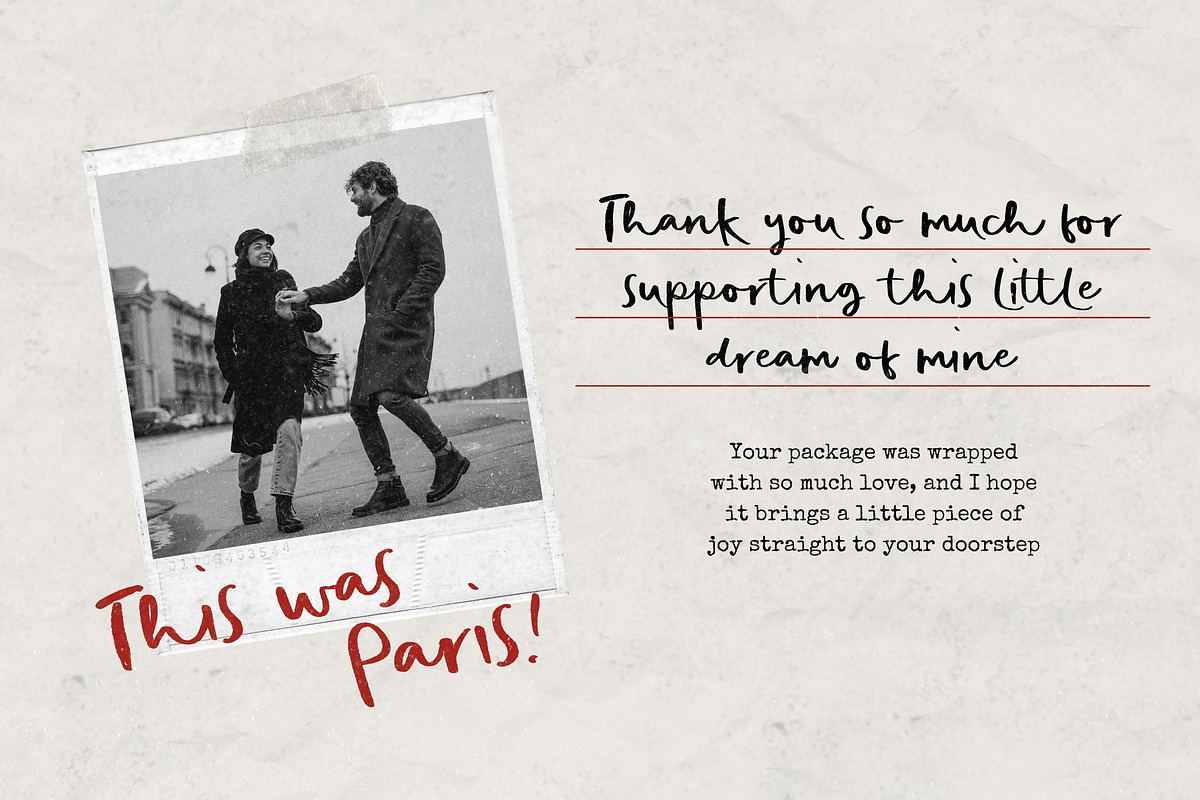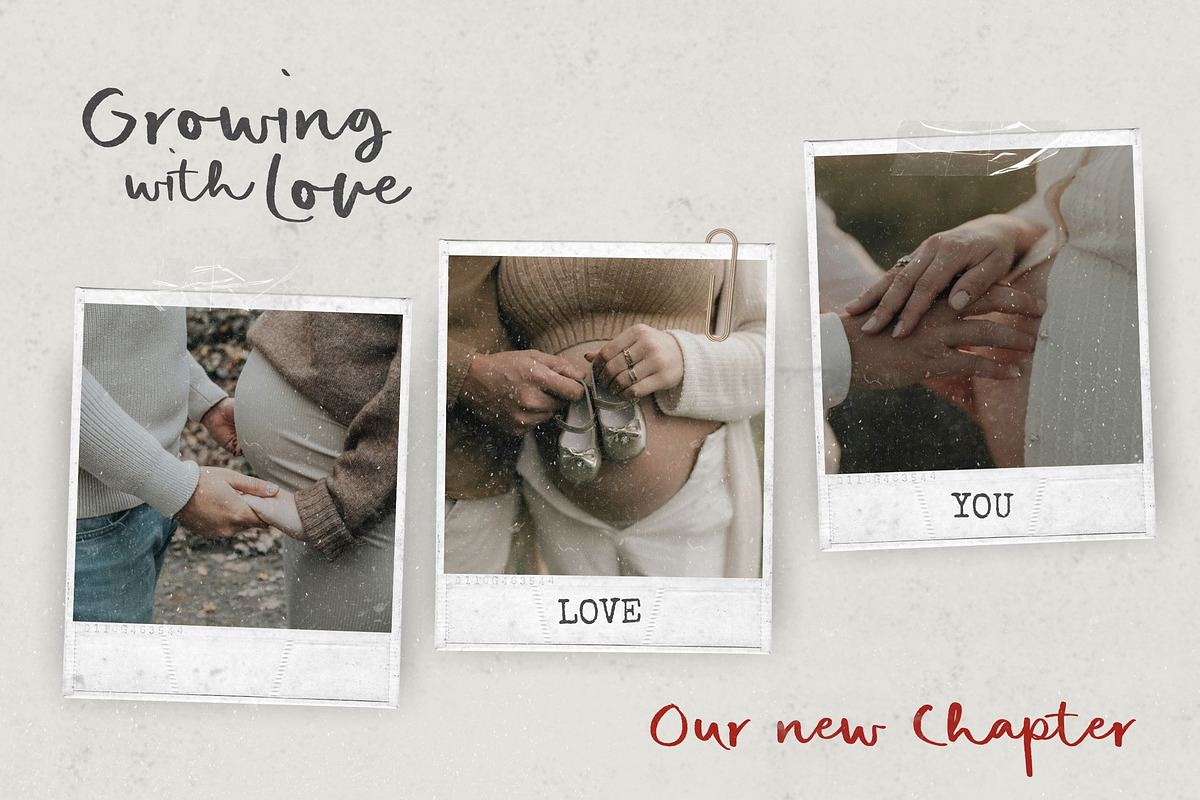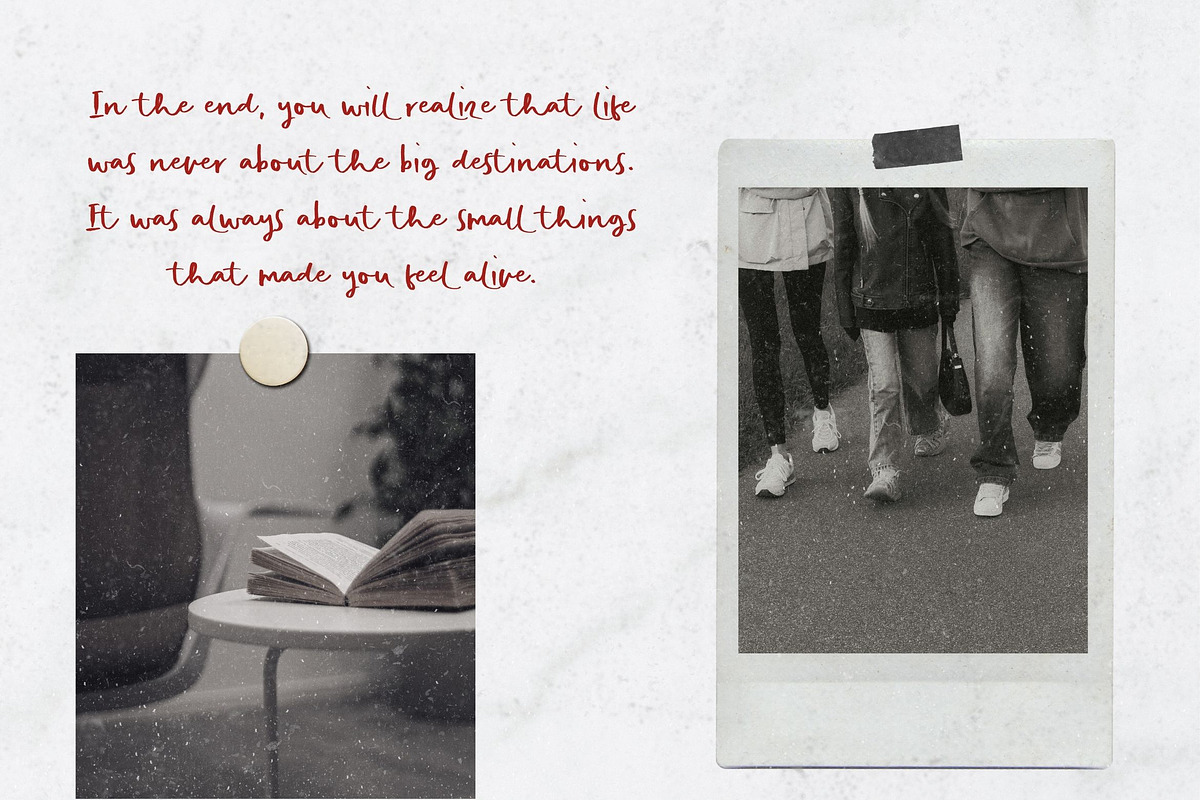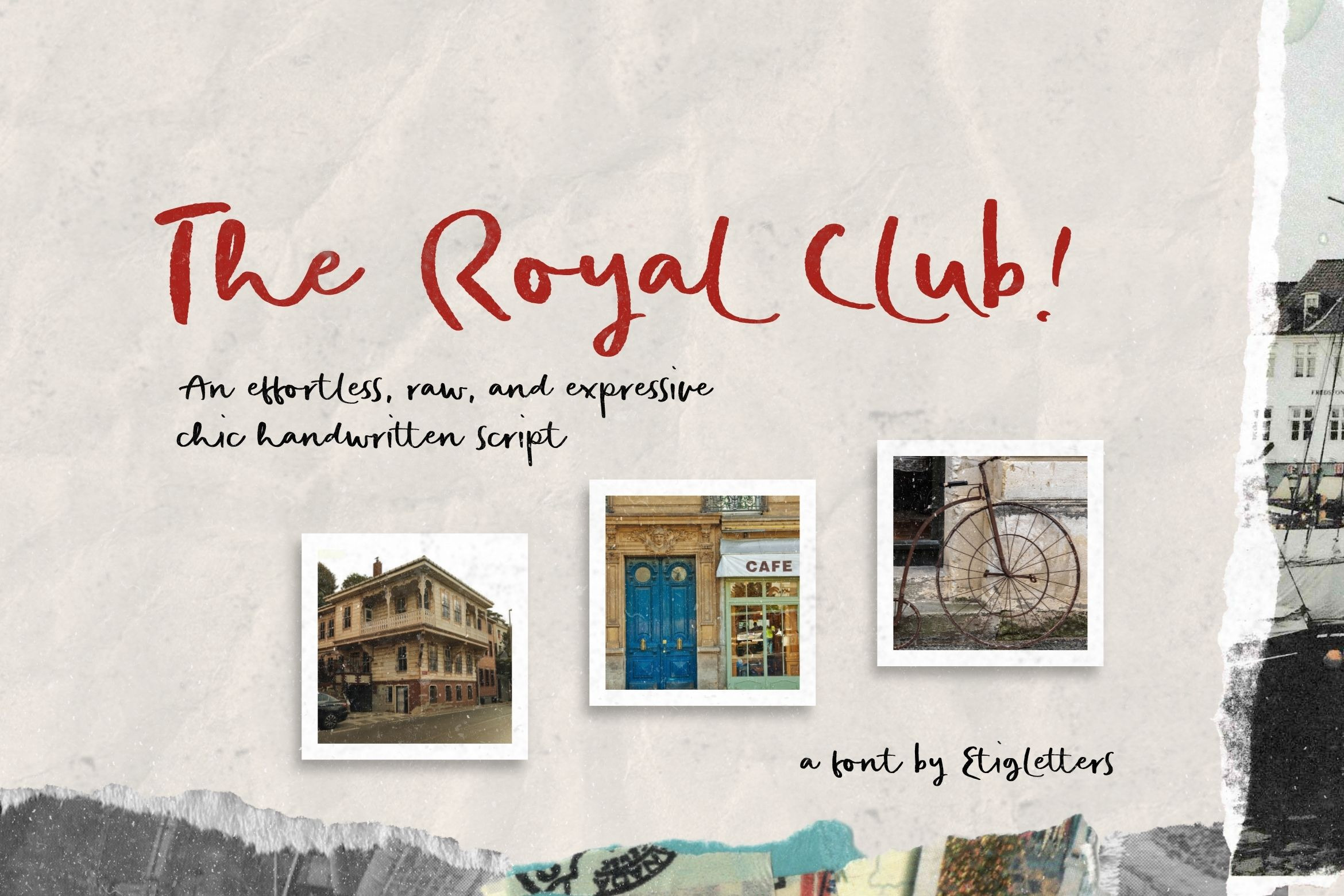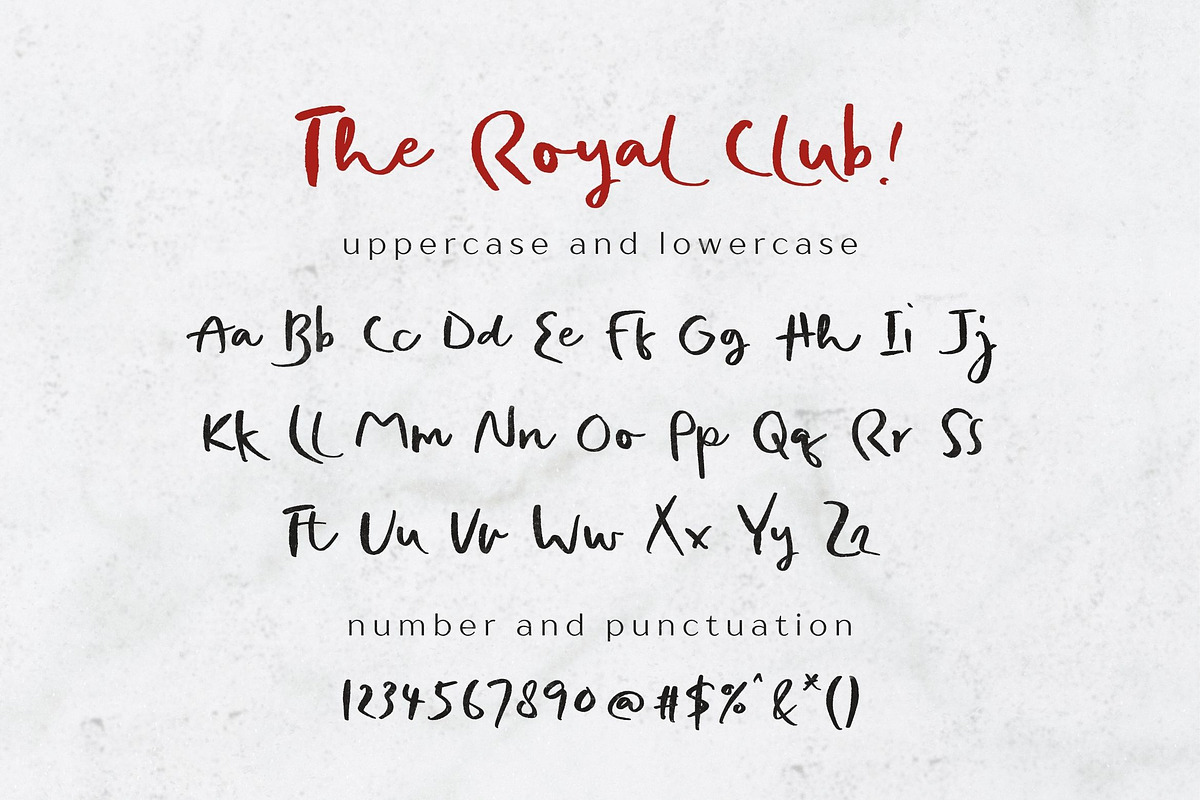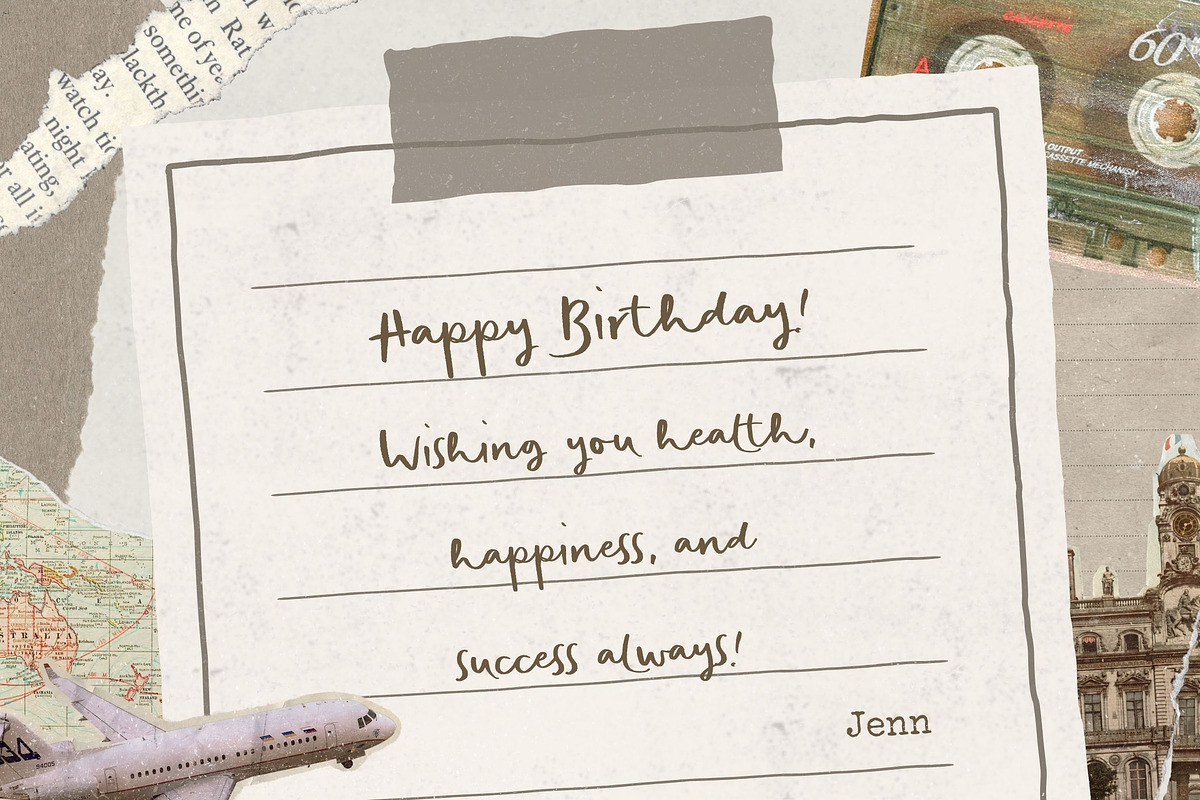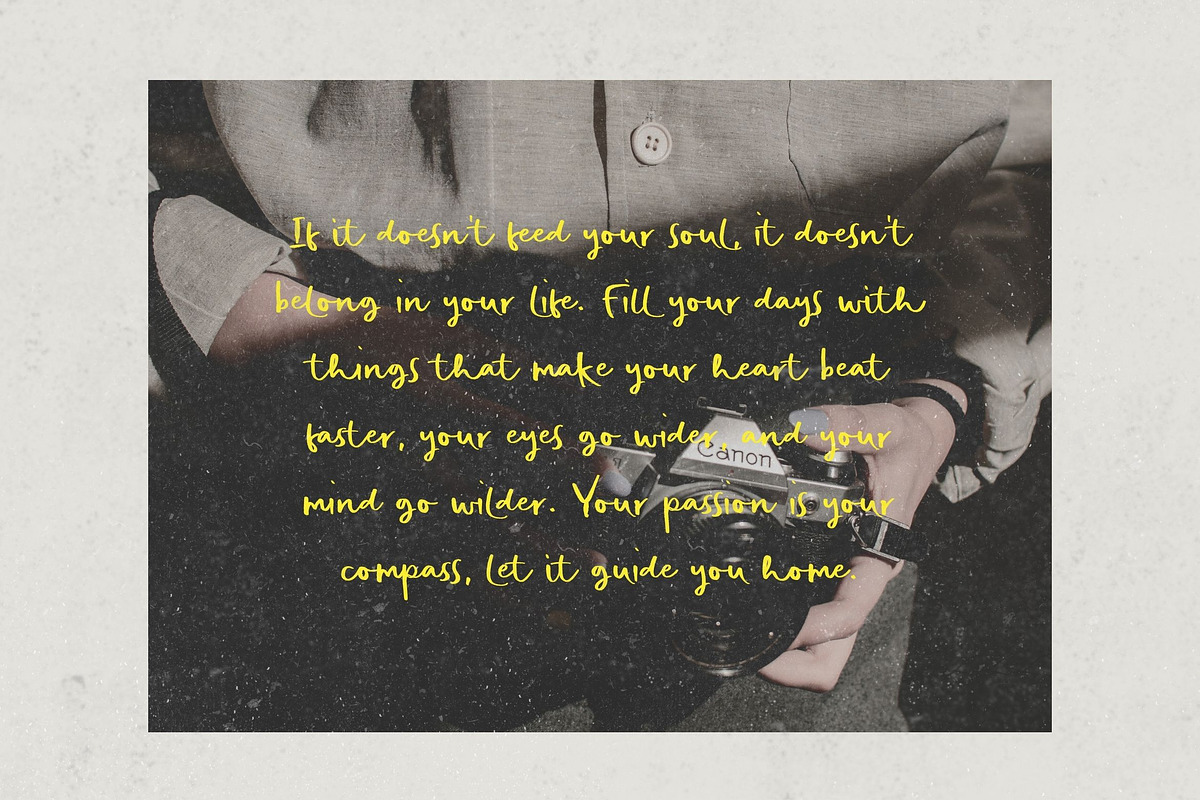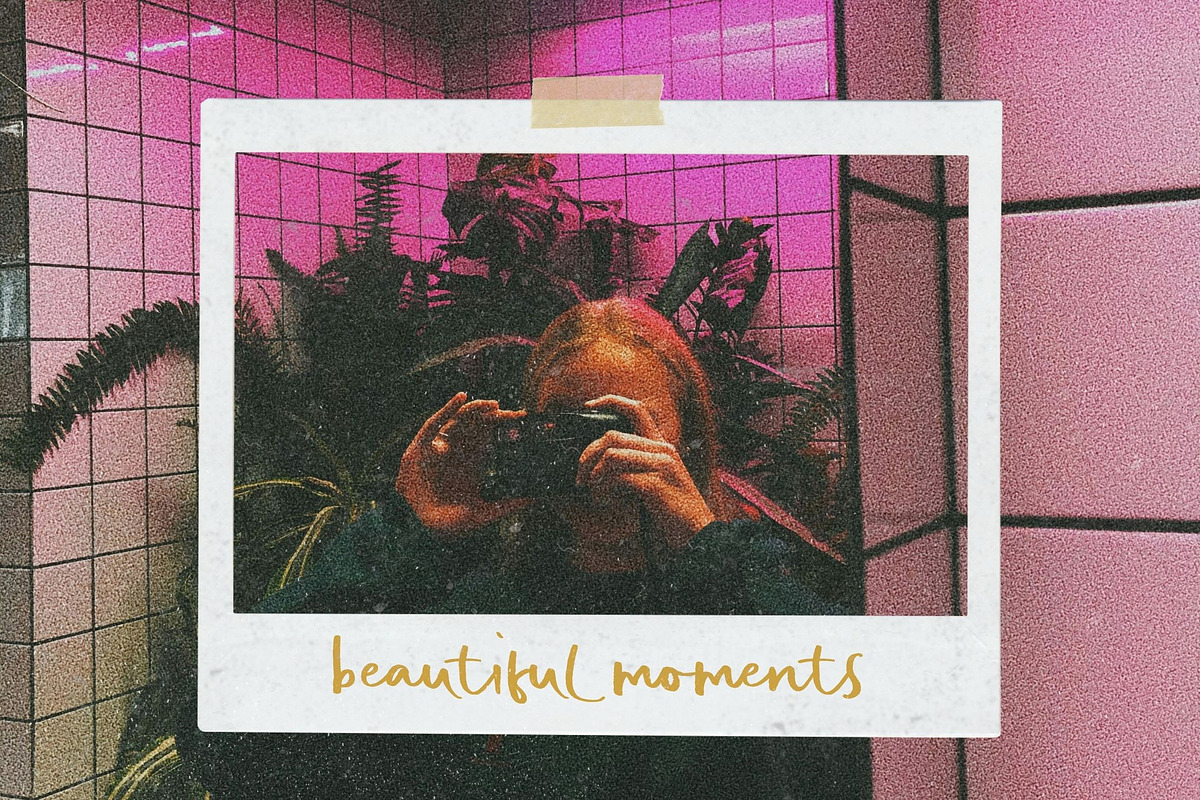
The Royal Club Handwritten Font
Introducing, The Royal Club - a beautiful, raw, and elegant handwritten font. Inspired by the effortless charm of Parisian chic and aesthetic scrapbooks, it features natural flows and unique ligatures that give your text a genuine, custom hand-drawn feel.
It can be used for various types of design needs such as wedding invitations, editorial layouts, vintage branding materials, social media templates, posters, quotes, and more.
This font is also highly versatile and suitable to be combined with a clean sans serif to make your design more perfect. Also, it's already PUA Encoded, meaning you can access all the special characters and ligatures easily!